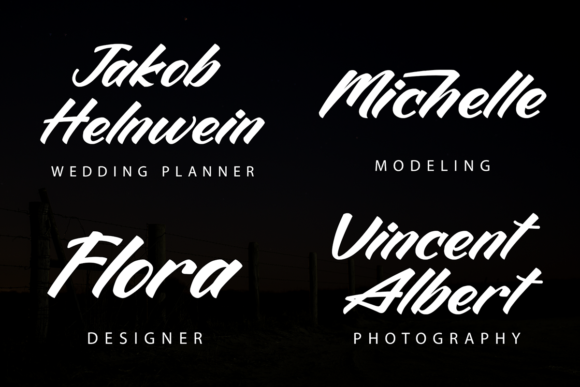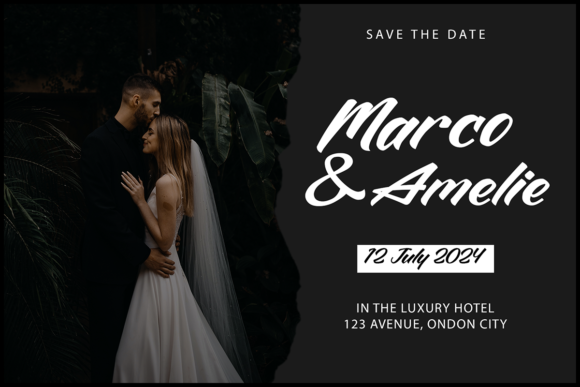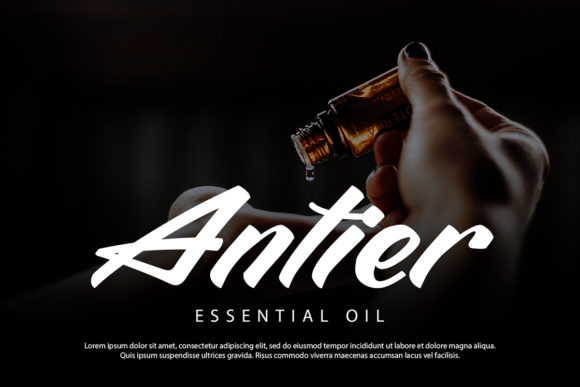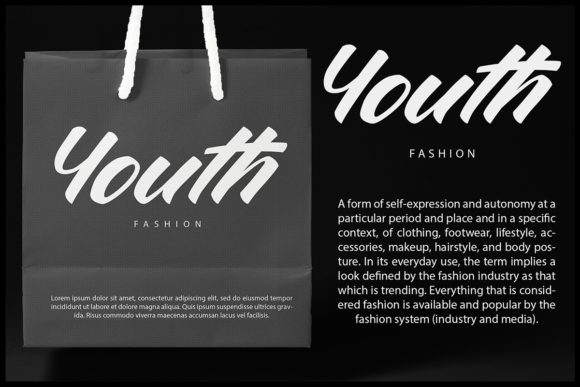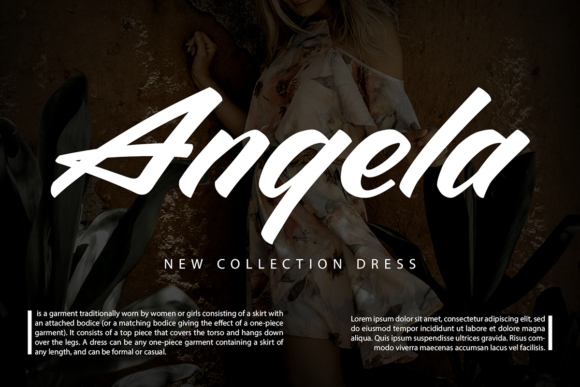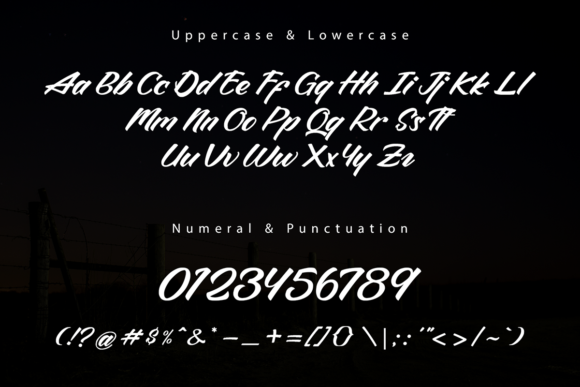
Introduction to Nocturnal Font
Have you ever stared at a blank page, trying to find the perfect font to bring your creative project to life? The struggle is real, but what if I told you there’s a font that can change the game for you? Introducing the Nocturnal Font, a bold and modern handwritten typeface that’s about to become your new best friend.
With its sleek and modern design, the Nocturnal Font is perfect for designers who want to add a touch of elegance to their work. Whether you’re creating a brand logo, designing an invitation, or working on a greeting card, this font is sure to make your project stand out. And the best part? It’s available for free download, making it a valuable resource for designers who want high-quality fonts without breaking the bank.
From its multilingual features to its style variations, the Nocturnal Font is a design resource that’s hard to resist. With its transparent background and bold strokes, it’s the perfect addition to any creative project.
Nocturnal Font
- High-quality, elegant font perfect for creative projects and designs.
- Comes with a transparent background, ideal for use on various design resources.
- Includes 100+ glyphs, making it suitable for a wide range of creative applications.
- Features a high-resolution design (up to 1024×1024 pixels) for crisp and clear display.
- Unique, modern design that stands out from other fonts, ideal for making a statement in your designs.
- Supports various languages, including Latin, Cyrillic, and Greek alphabets.
Honest Review: Nocturnal Font
Nocturnal Font is a stylish, high-quality design resource that I’ve had the pleasure of working with on a recent creative project. I was blown away by the level of detail and care that went into crafting this font.
What works well: ✨ The transparent background and versatile design make it a great addition to any project. The font is highly customizable and can be easily adapted to suit different design needs. I also appreciate the fact that it’s a free download, making it accessible to designers of all levels.
What doesn’t work so well: ⚠️ While the font is overall of high quality, I did experience some issues with kerning on certain words. This was easily fixed by adjusting the spacing, but it was a minor inconvenience.
Overall, I’m thoroughly impressed with Nocturnal Font and would highly recommend it to anyone looking for a high-quality design resource. It’s a fantastic addition to any designer’s toolkit and is sure to elevate any creative project.
- Customizable
- Great for creative projects
How to Use Nocturnal Font
The Nocturnal Font is a versatile design resource ideal for creative projects that require a touch of sophistication. With a transparent background and high-quality design, this font is perfect for adding a unique touch to your work.
Tips for Getting the Most Out of Nocturnal Font
For the best results, pair the Nocturnal Font with a contrasting background to make it stand out. Experiment with different font sizes and styles to create visually appealing designs.
The Nocturnal Font is ideal for a wide range of creative projects, including: branding, marketing materials, social media graphics, and more. Its high-quality design and transparent background make it a versatile design resource that can be used in various contexts.